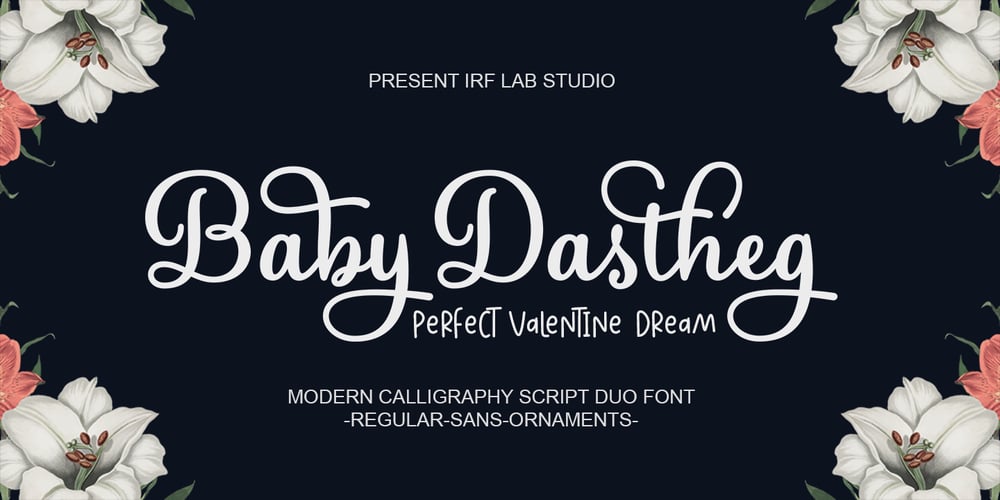
Baby Dastheg Font Family was designed by M Irvan Syouqi S and published by IRF Lab Studio. Baby Dastheg contains 3 styles and family package options. Baby Dastheg is a feminine modern handwritten font, carefully handcrafted to become a true favorite. Its casual charm makes it appear wonderfully down-to-earth, readable and, ultimately, incredibly versatile.Baby Dastheg will look outstanding in any context, whether it’s being used on busy backgrounds or as a standalone headline. Equipped with alternative letters for beginning and ending. and also “stylistic alternates” which makes this letter very beautiful and attractive.Thank you